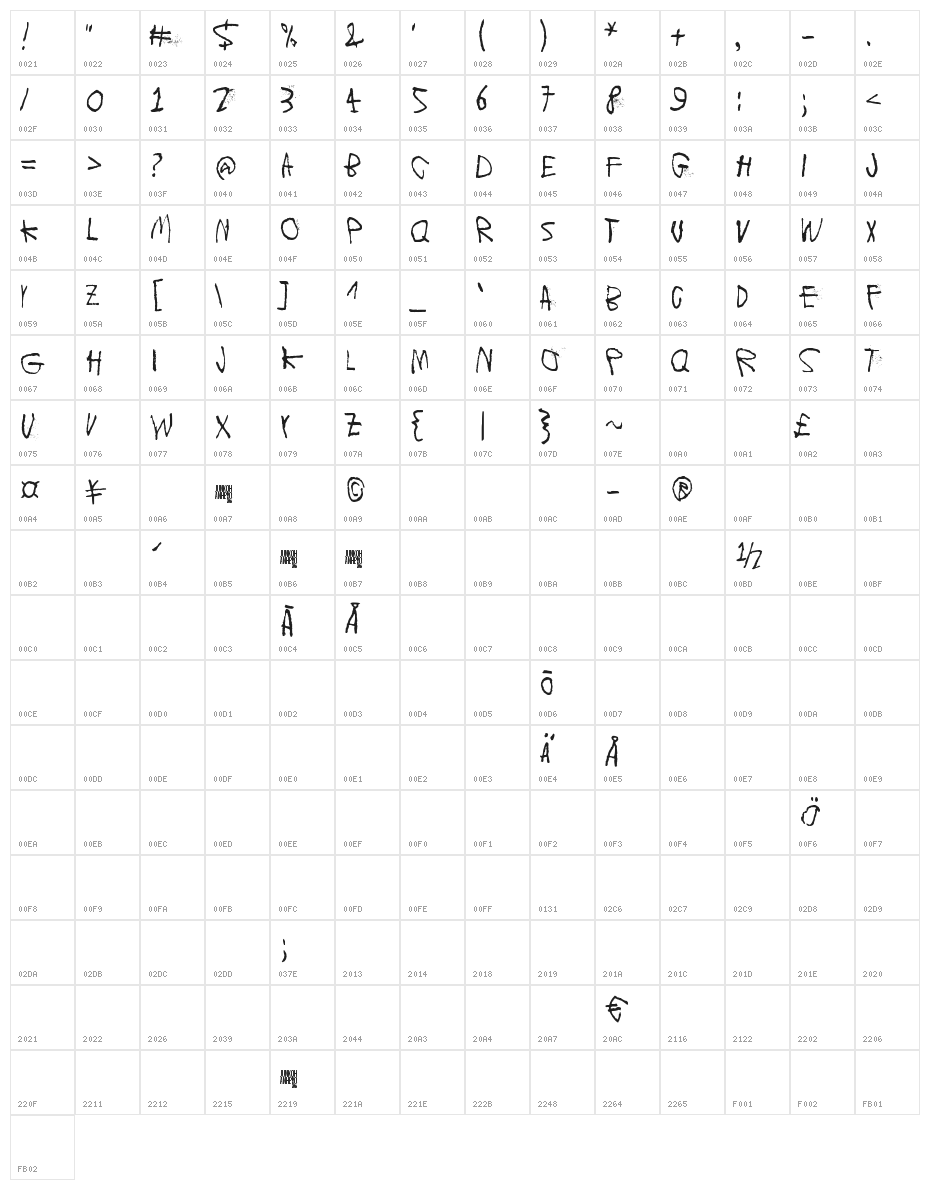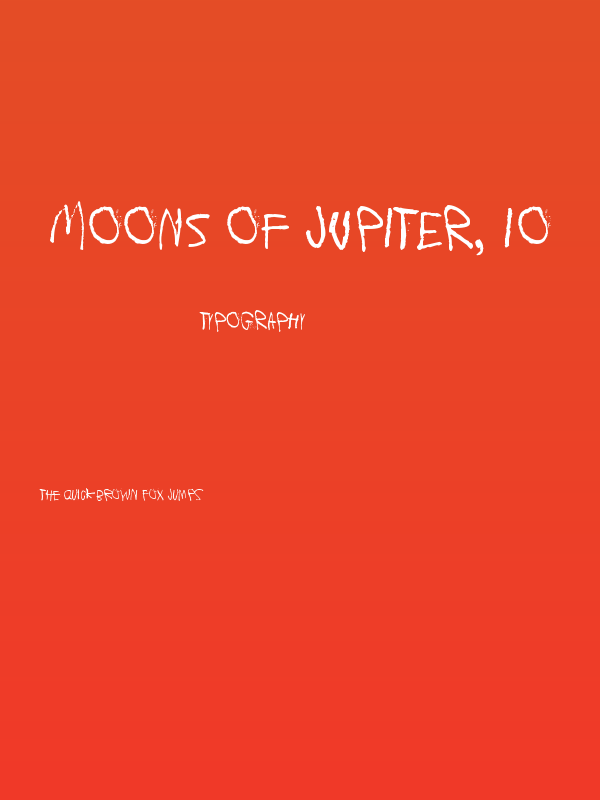
Moons of Jupiter, Io Font
Moons of Jupiter, Io Description
This font features a rough, hand-drawn style that gives it a raw and expressive character. The letters are unevenly shaped, with a distressed texture that adds a sense of dynamism and energy. The uppercase and lowercase letters maintain a consistent style, with bold strokes and irregular edges that create a sense of movement. The numbers and special characters follow the same aesthetic, making the font cohesive and versatile. Its unique appearance makes it suitable for projects that require a touch of creativity and individuality.
| Proposed Projects | Ideal for artistic projects, album covers, posters, and creative branding that seeks to convey a sense of individuality and raw energy. |